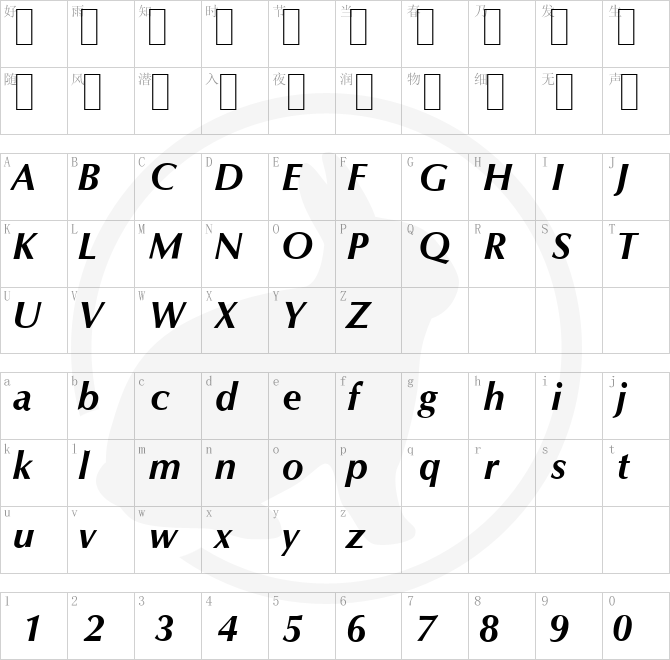
- Font Name:O801-Flare
- Subfamily:BoldItalic
- Subfamily:SoftMaker Software GmbH O801-Flare-BoldItalic
- Full Name:O801-Flare-BoldItalic
O801-Flare-BoldItalic.ttf is a very beautiful artistic font, O801-Flare-BoldItalic.ttf is widely used in the design and printing of various books and pictures,O801-Flare-BoldItalic.ttf has a strong visual impact,O801-Flare-BoldItalic.ttf is a commonly used font in newspapers, magazines and books, and is used in posters, e-commerce Poster design, store design, logo design, font design and other fields.O801-Flare-BoldItalic.